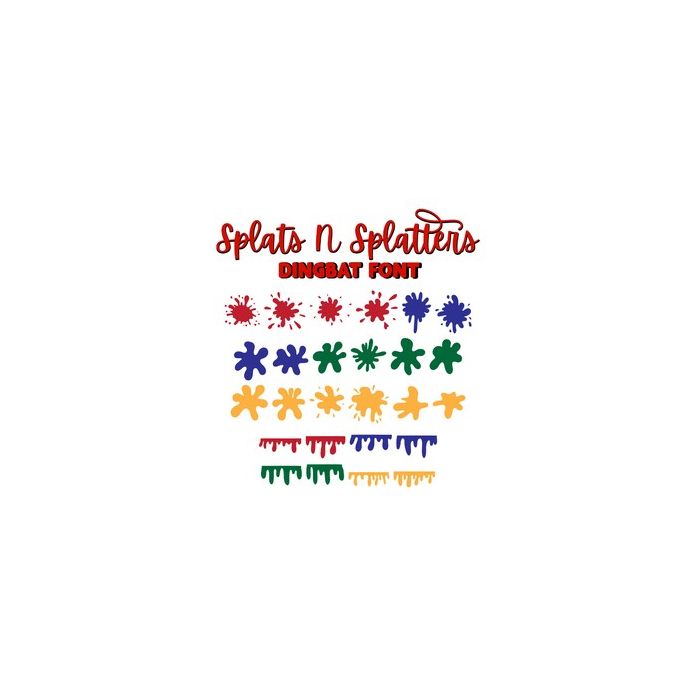
Unleash your inner artist with our "Splats N Splatters Dingbat Font." This unique font collection is a canvas of creativity, featuring a diverse array of splatters, drips, and more. Elevate your design projects with a touch of expressive chaos. Whether you're a graphic designer, crafter, or small business owner, this font is your key to adding a dynamic and artistic flair to your creations. Perfect for logos, branding, social media, stationery, and crafting, this versatile dingbat font is a must-have in your design toolkit. Download now and let your imagination run wild!